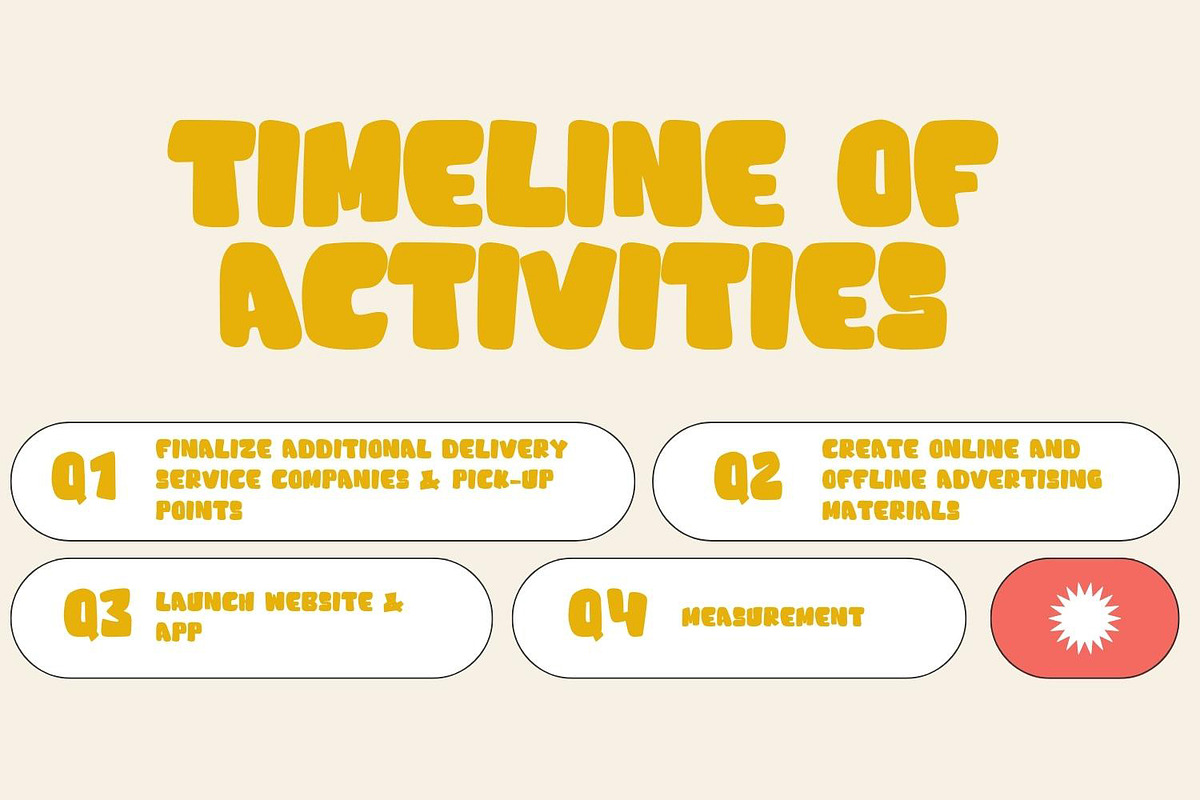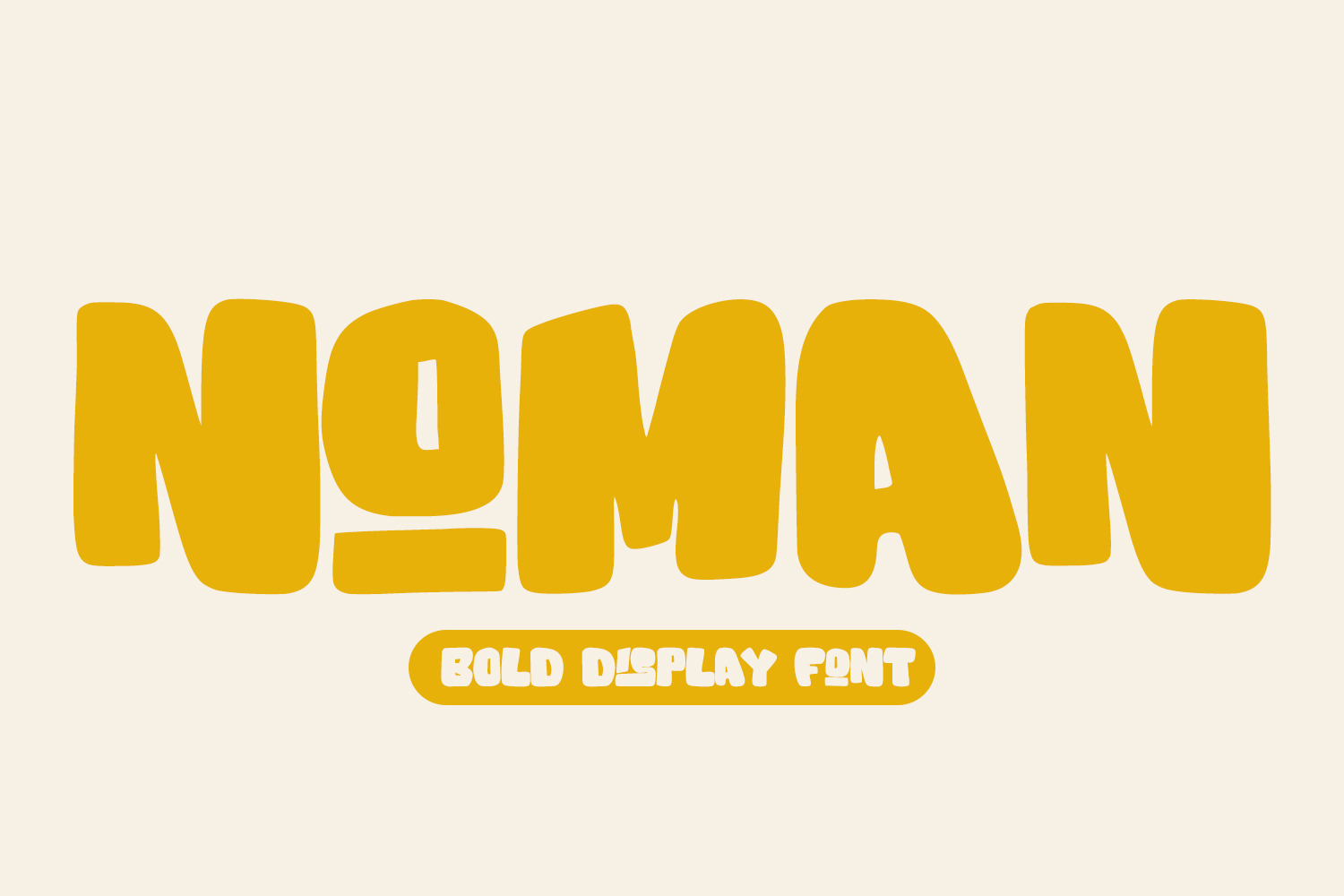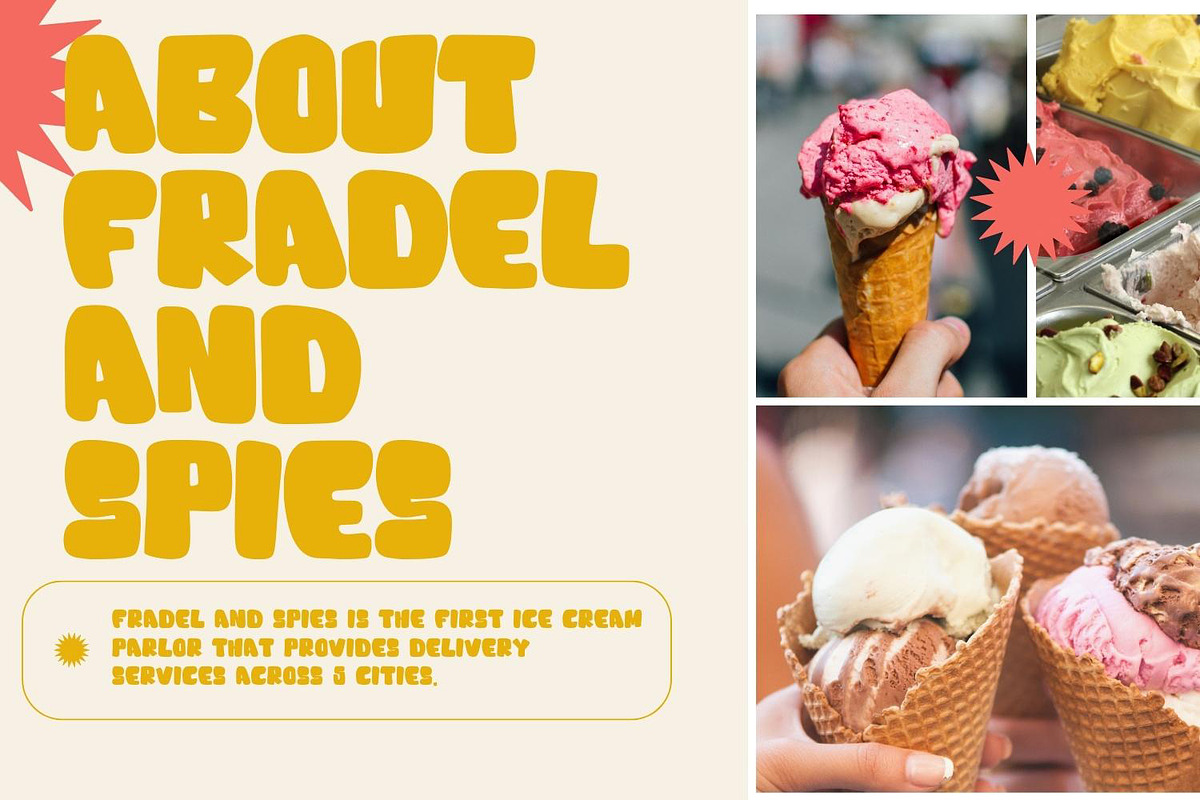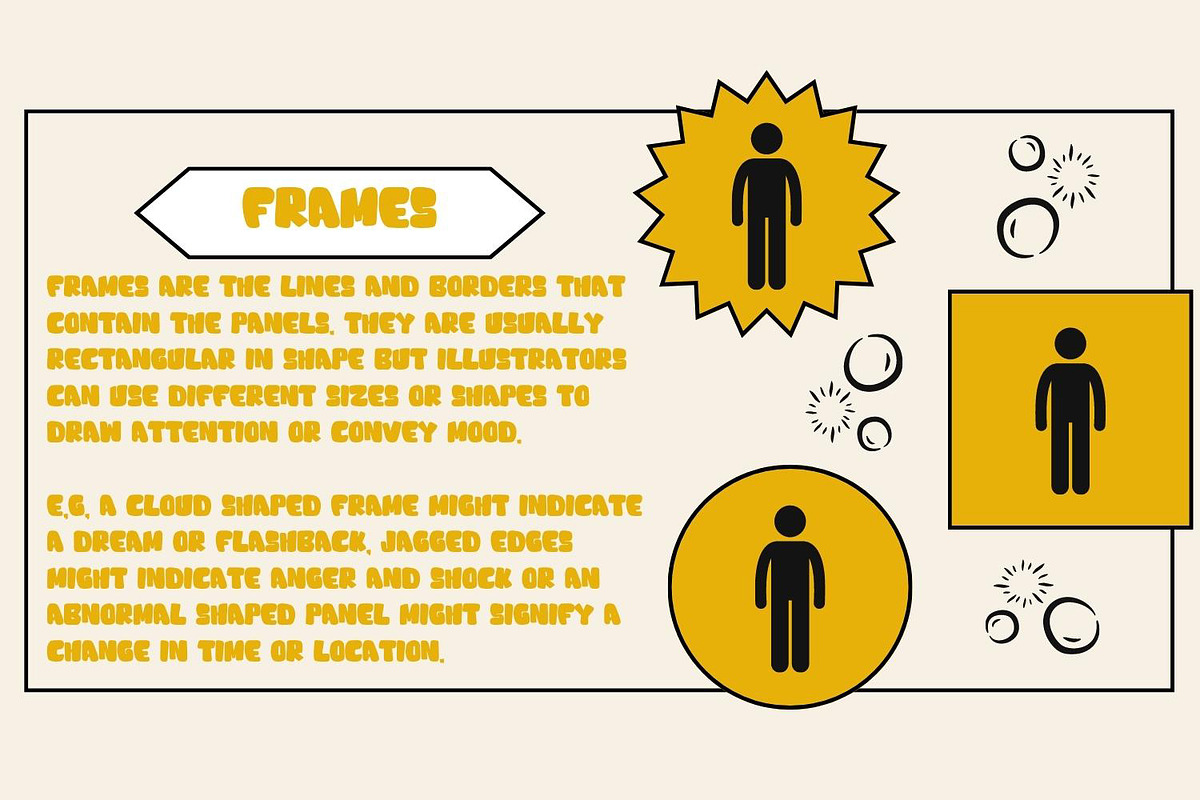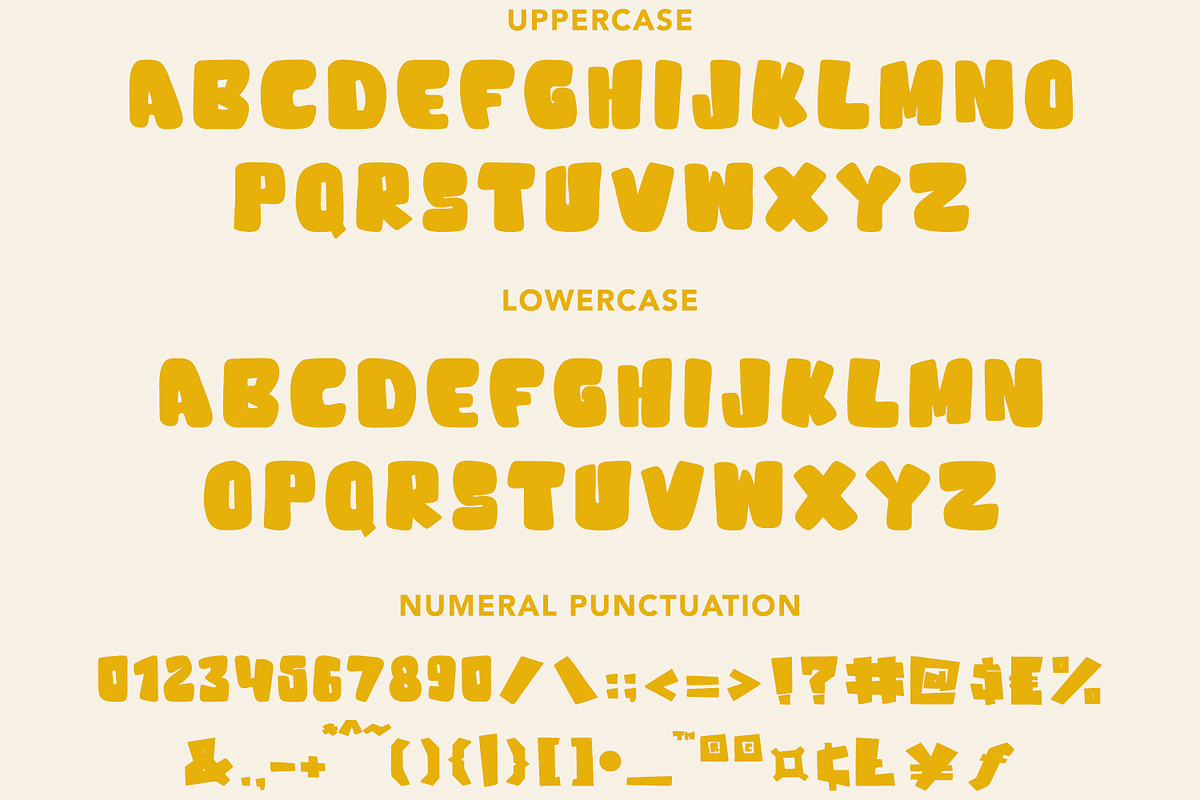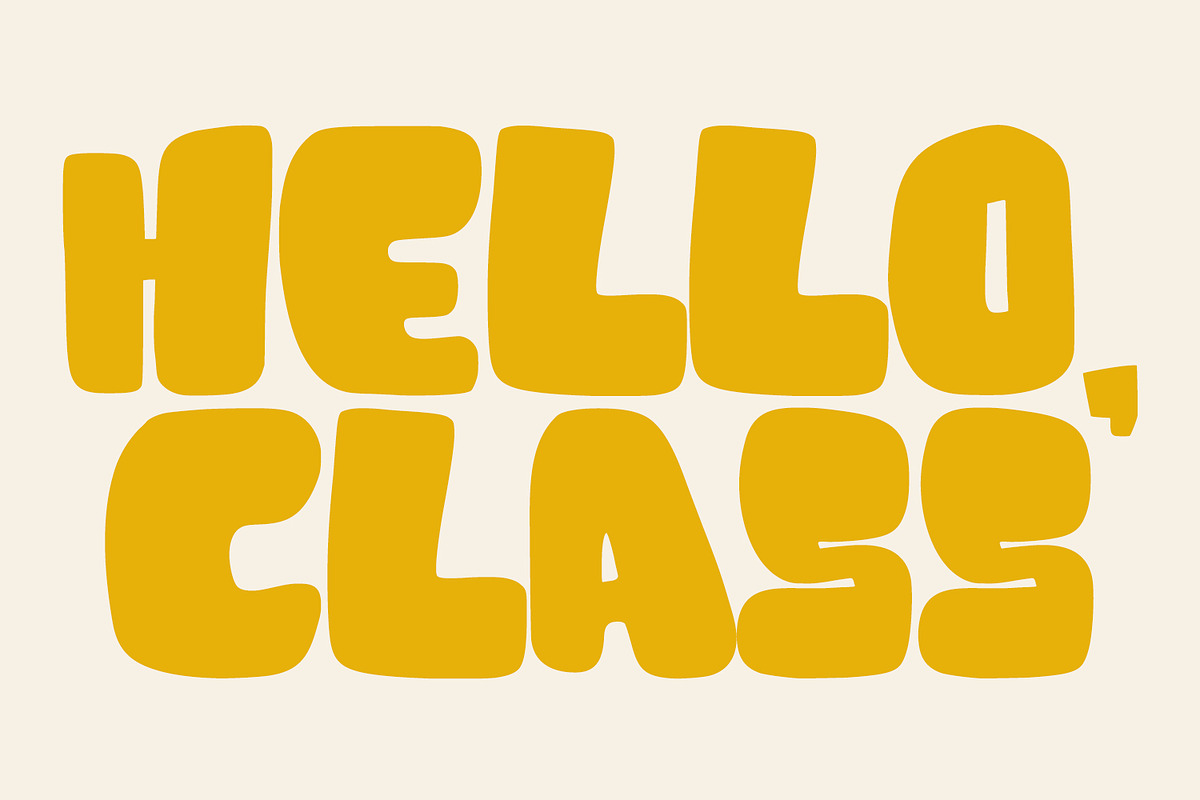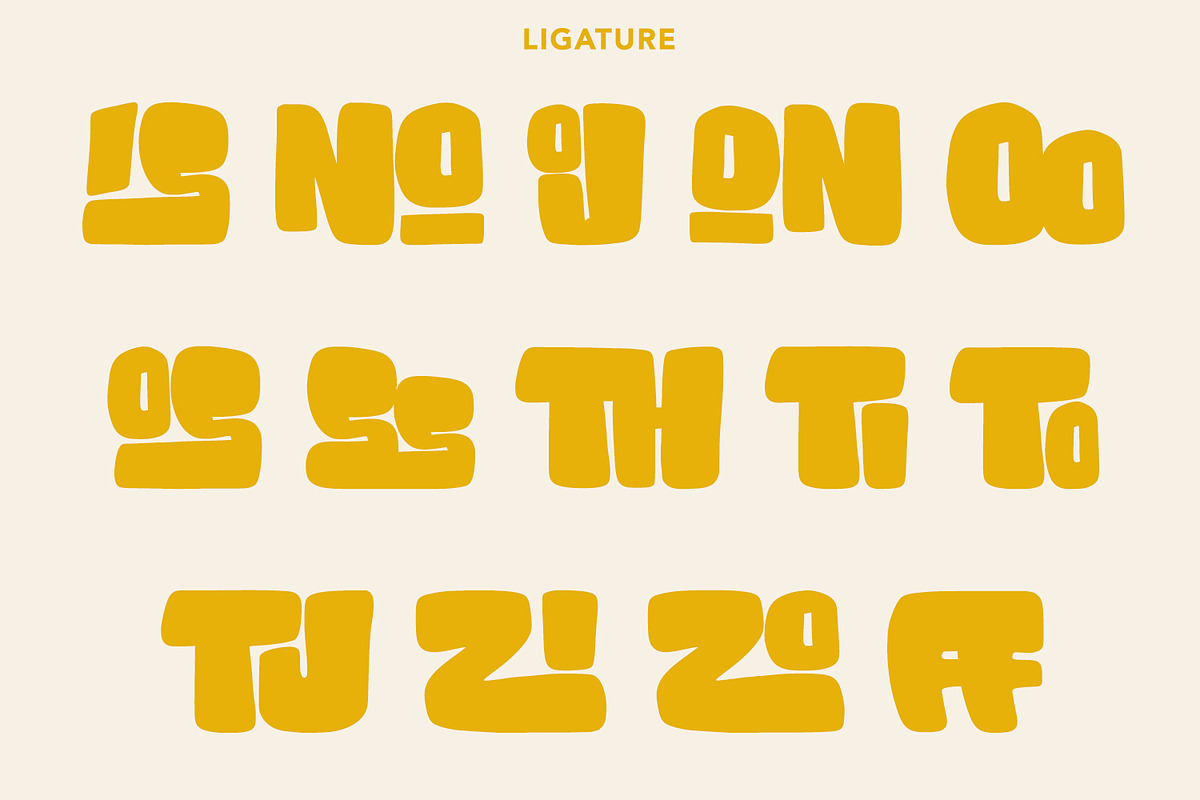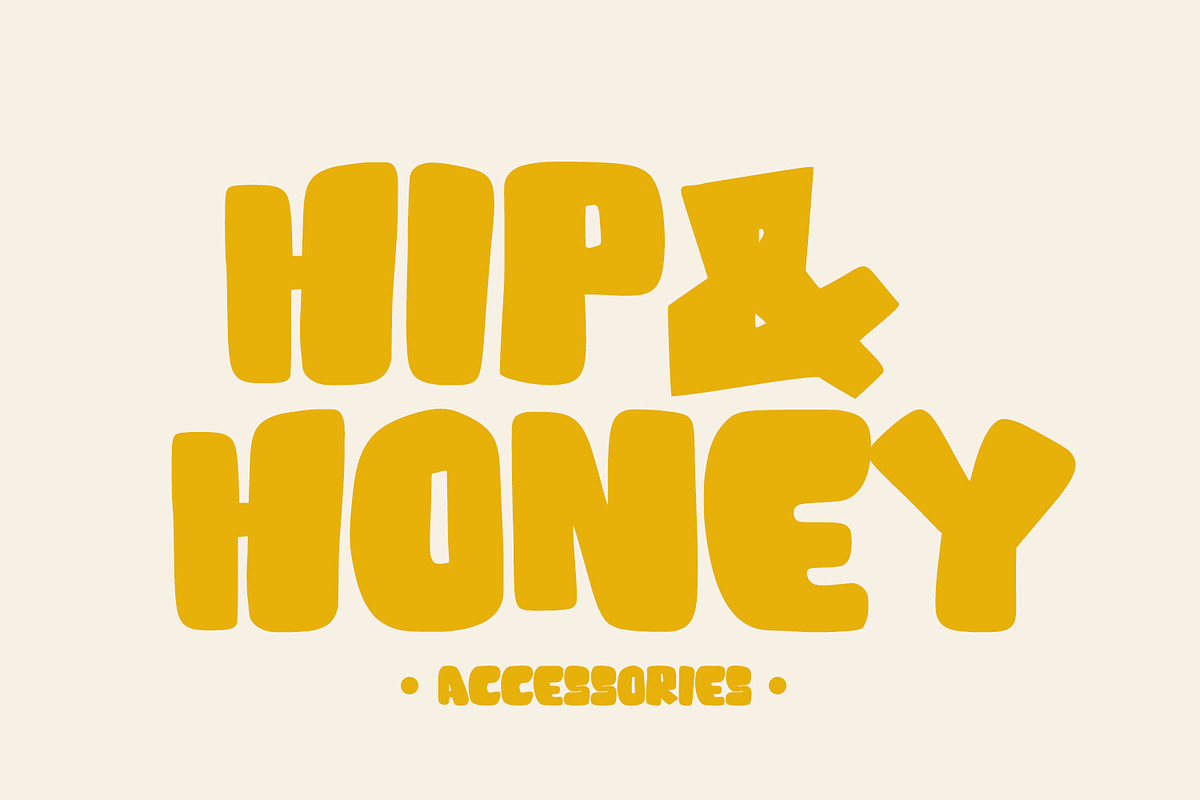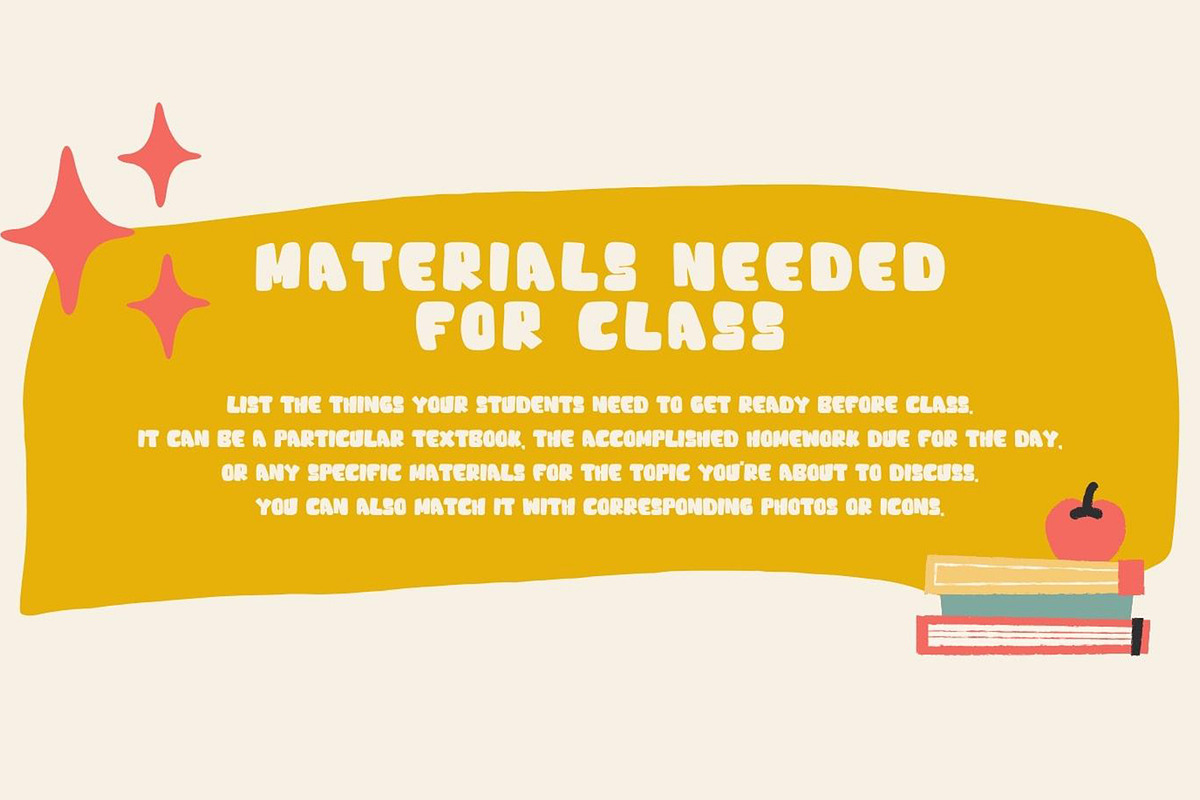
Noman - Bold Display Font
Noman - Bold Display Fontl, retro looking display font. Whether you use it for cartoon related designs, children games or just any creation that requires a lovely touch, this font will be an amazing choice.
Features : • Character Set A-Z • Numerals & Punctuations (OpenType Standard) • Accents (Multilingual characters) Ligature